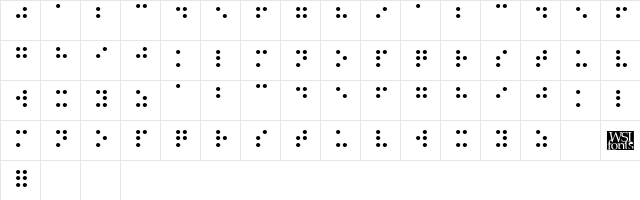
Braille Regular Free Font
Braille Regular
Braille Family
Complete Braille Regular glyph index. Displaying only characters natively supported by Braille Regular font.
Design Context for Braille
Braille is a composed and adaptable typeface that performs quietly and consistently across a wide range of design contexts.